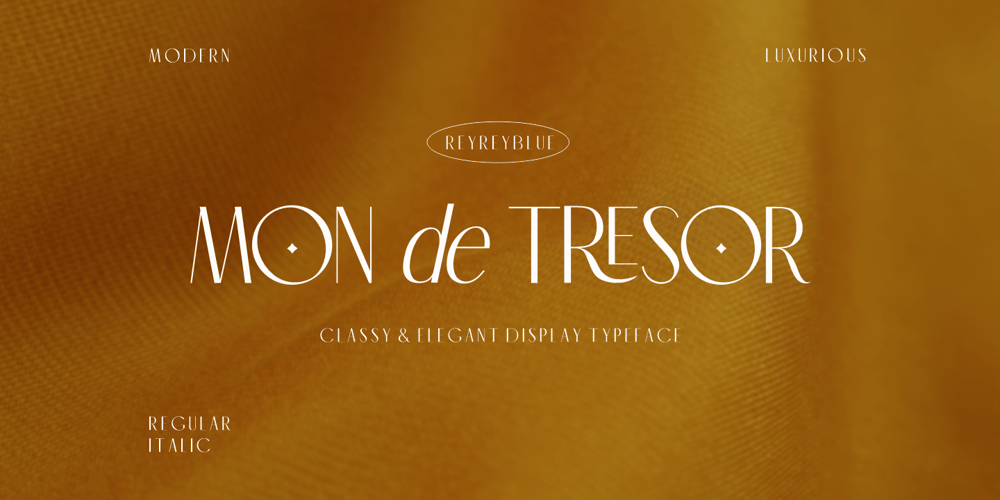
Mon de Tresor
Mon de Tresor font
Mon de Tresor Font Family was designed by Risca Anitawati and published by Reyrey Blue Std. Mon de Tresor contains 2 styles and family package options. Mon De Tresor is an elegant and thin lettered sans serif font. Perfect for editorial projects, Logo design, Clothing Branding, product packaging, magazine headers, or simply as a stylish text overlay to any background image.It will add a luxury spark to any design project that you wish to create! Includes: Uppercase and Lowercase Ligatures Stylistic Alternate